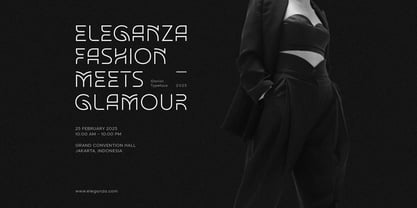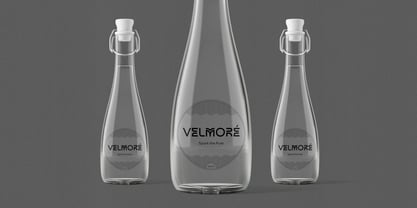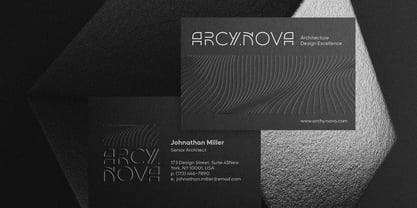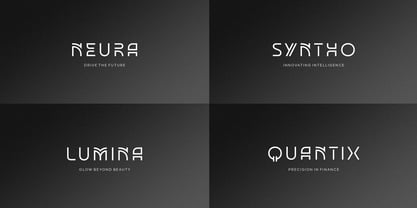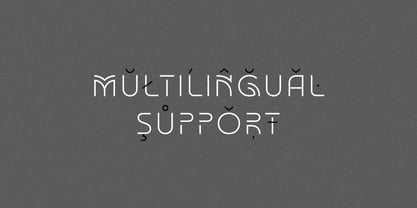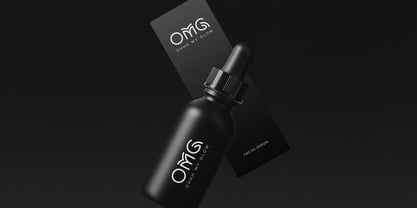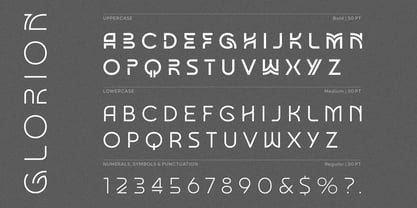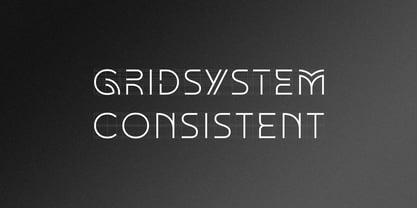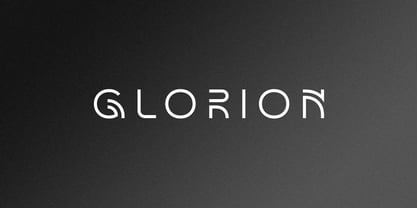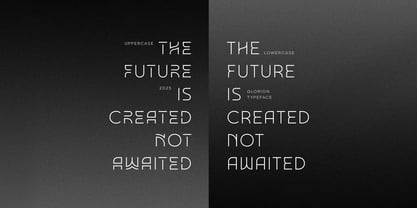
Glorion
by Digitype Studio
The Glorion Font Family was designed by Yusuf Niky Syahroni and published by Digitype Studio. Glorion contains 6 styles and family package options.
Glorion is a modern sans-serif font that combines sleek elegance with versatile functionality, making it perfect for various design projects. Its precise geometric shapes create a modern, luxurious, and futuristic impression. Each character features a clean and consistent design. Ideal for branding, editorial design, packaging, and more, Glorion is the ideal choice for any high-end project.
Designers: Yusuf Niky Syahroni
Publisher: Digitype Studio
Foundry: Digitype Studio
Design Owner: Digitype Studio